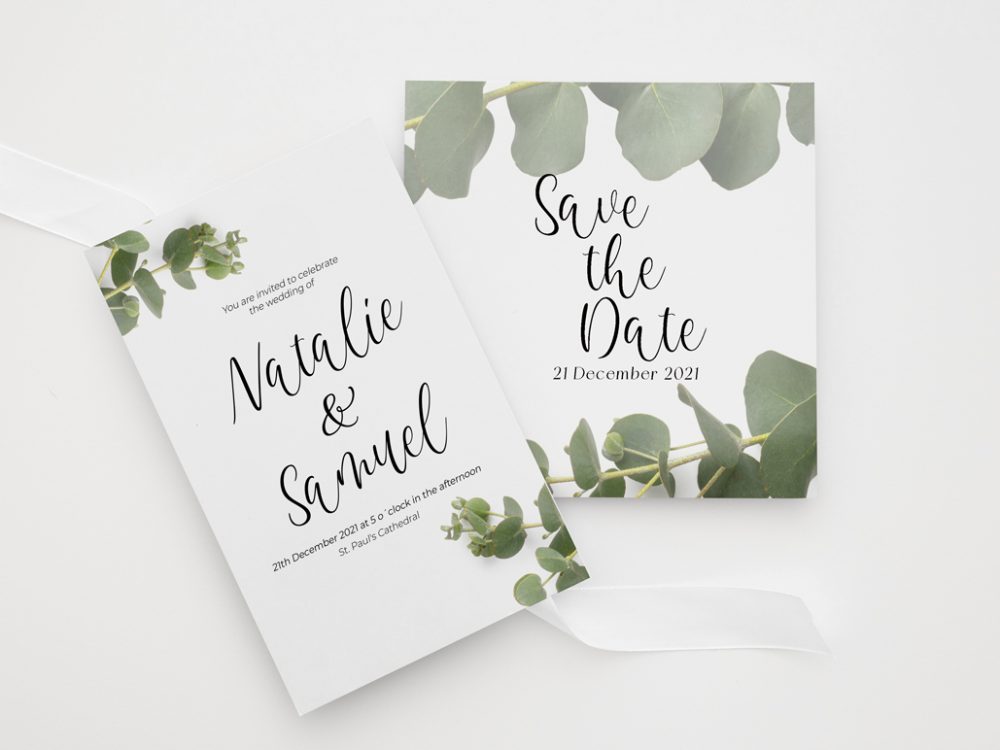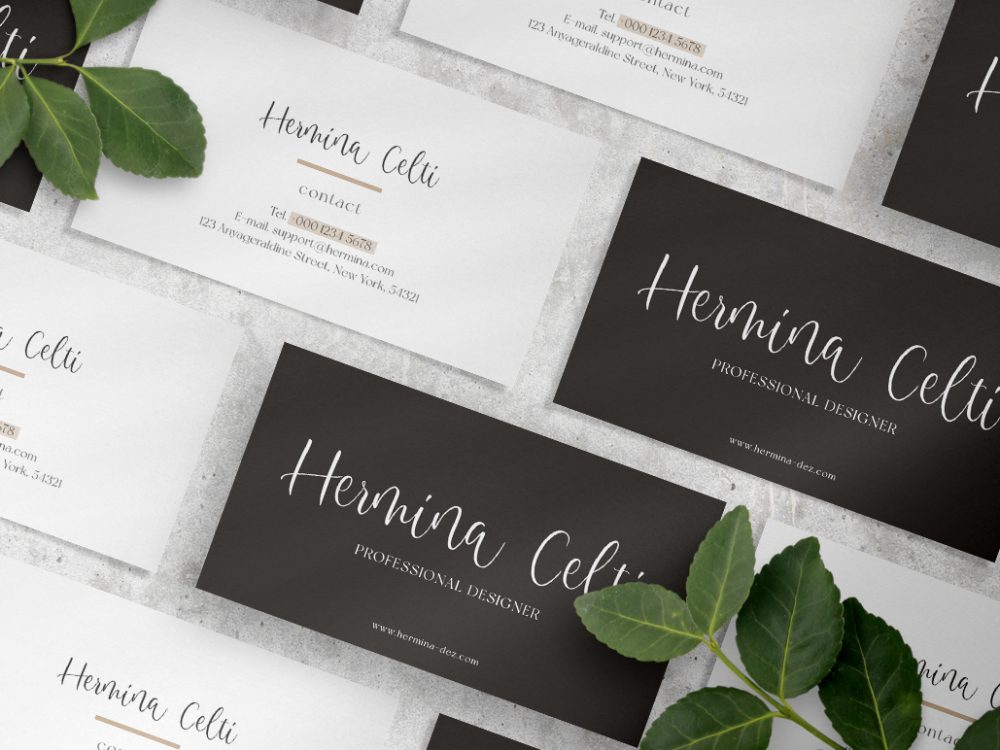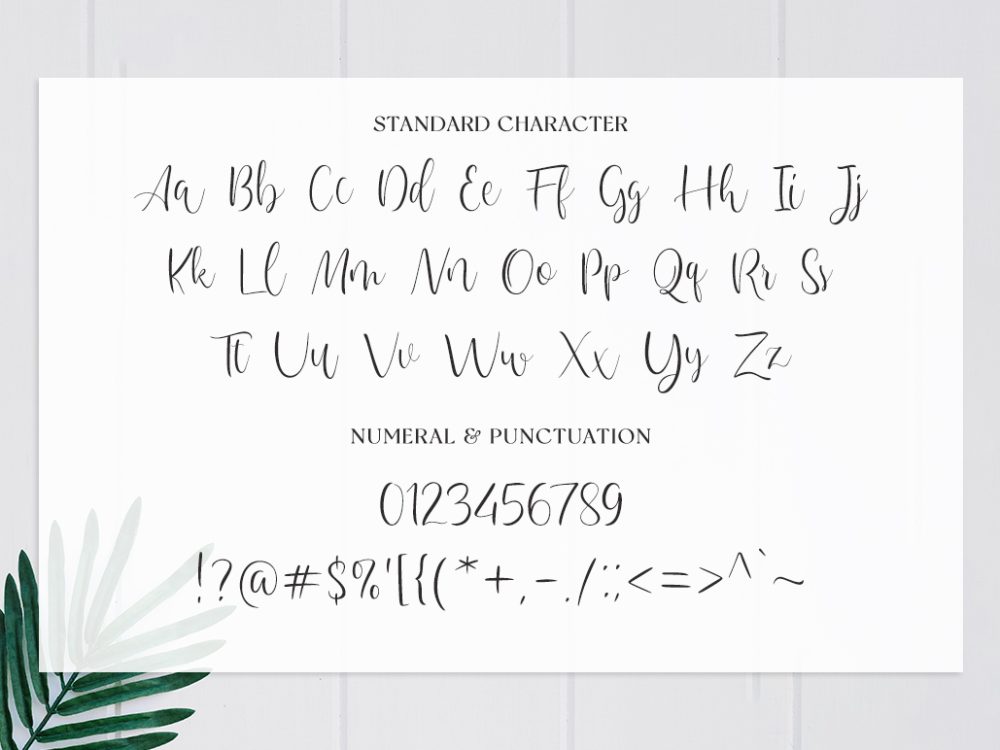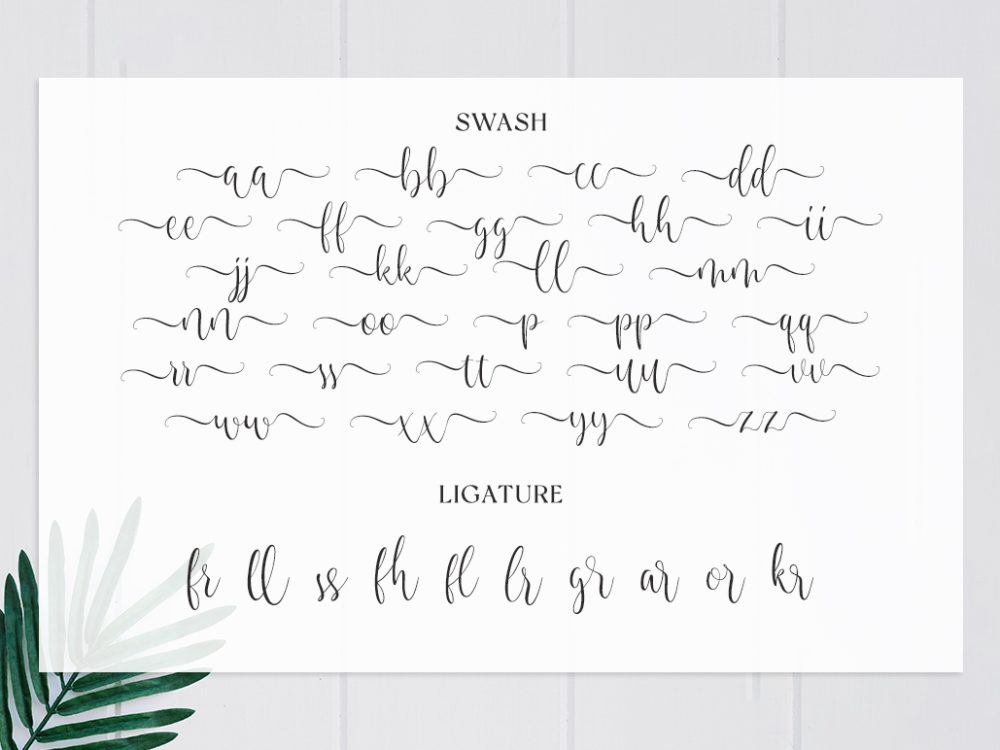
Merellian Free Font, an opulent and exceptionally stylish script font, exudes an air of elegance. Its captivating aesthetic is perfect for enhancing the beauty of wedding invitations, thank you cards, quotes, greeting cards, logos, business cards, and any design that craves a graceful, handwritten touch. If you like it don’t forget to check out the full version.